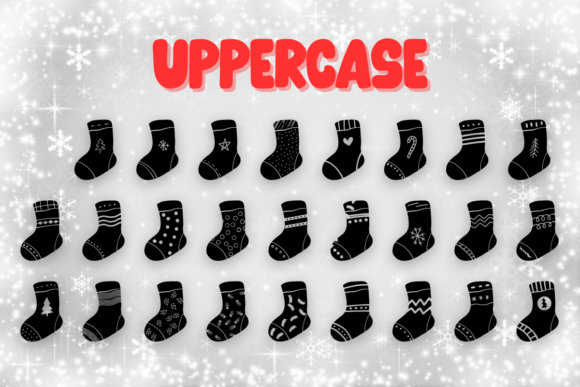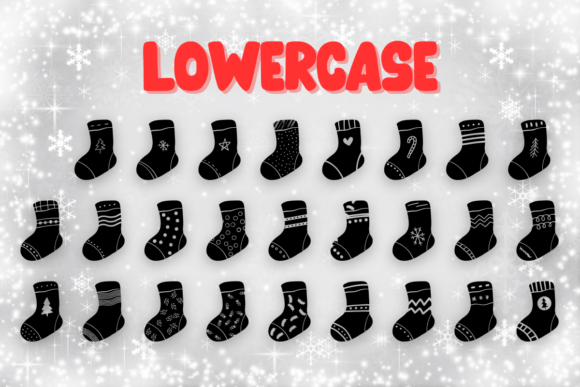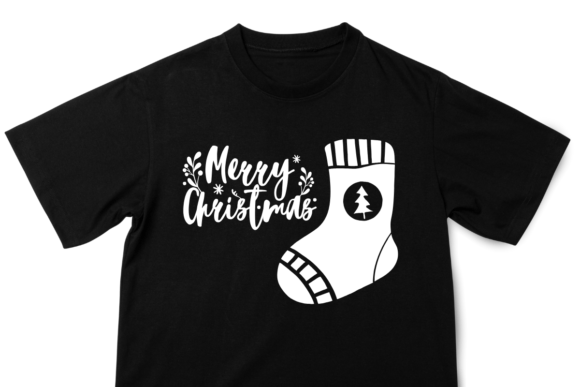
Introduction to Chrisock Font
Have you ever been stuck in the midst of a creative project, searching for that perfect design element to bring it to life? It’s a feeling all too familiar for designers, especially during the holiday season when a dash of festive flair can make all the difference. That’s where the charming Chrisock Font comes in – a delightful dingbat font featuring adorable Christmas sock designs that add a touch of Yuletide whimsy to any project.
Whether you’re creating holiday cards, decorations, or simply spreading Christmas cheer, Chrisock Font is the perfect design resource to elevate your work. With its high-quality, transparent background, this free download is a valuable asset for any designer looking to add a jolly and cozy touch to their designs.
- High-quality design resource with a unique, creative touch perfect for any project.
- Unique character set and stylish design elements make it a standout choice for creative projects.
Honest Review: Chrisock Font
I recently stumbled upon the Chrisock Font, and I must say it’s a great addition to my design arsenal. This font is perfect for any creative project that requires a modern and sleek look.
- ✨ High quality design: The font is well-crafted, with clean lines and a consistent aesthetic.
- ⚠️ Limited font styles: Compared to other fonts, Chrisock Font has a relatively limited number of styles, which may not be suitable for projects that require a lot of variation.
Overall, I’m impressed with the Chrisock Font. It’s a great design resource that can add a touch of modernity to any creative project. While it may have some limitations, its high quality design and free availability make it a valuable addition to any designer’s toolkit.
Use Chrisock Font on a transparent background to add a creative touch to your designs. Experiment with different font sizes and colors to create unique visual effects. You can also combine Chrisock Font with other design elements, such as images and graphics, to create a cohesive and visually appealing design.
Chrisock Font is perfect for a wide range of creative projects, including social media graphics, posters, flyers, brochures, business cards, logos, presentations, and documents. It’s also a great resource for designers who need a high-quality, free download font for their design work.